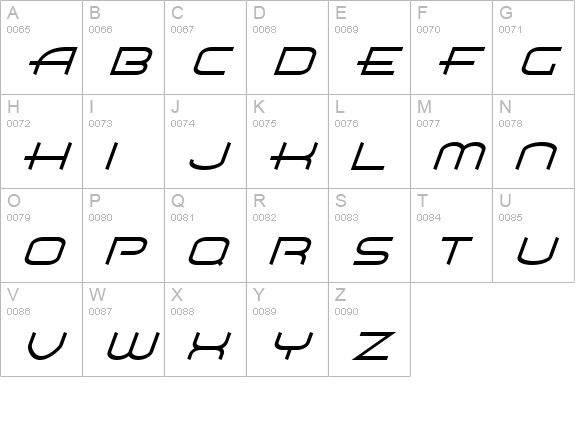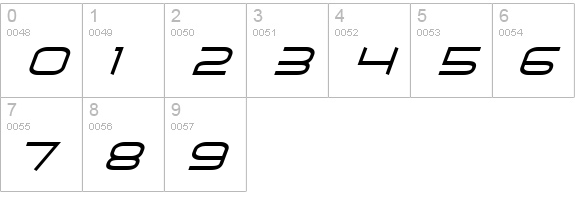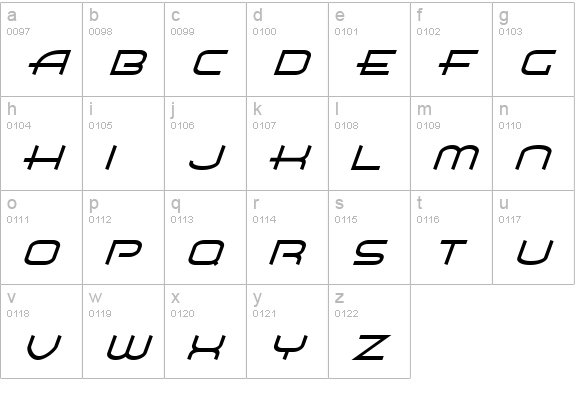
Air Flow BTN Lt Oblique Font Details
Air Flow BTN Lt Oblique is a distinctive, italic variant in the Air typeface family \xE2\x80\x94 well suited to design and typography projects.
Air Flow BTN Lt Oblique is a modern and stylish font that exudes elegance and sophistication. Its slanted design adds a touch of dynamism to any text, making it perfect for various design projects such as logos, posters, and branding materials. The sleek and clean lines of this font create a sense of professionalism and contemporary flair. What sets Air Flow BTN Lt Oblique apart is its versatility and adaptability to different design styles and purposes. Whether you're aiming for a minimalist look or a more elaborate design, this font will enhance your project with its unique aesthetic appeal. And the best part? Air Flow BTN Lt Oblique is completely free to download at FontsMarket.com. This means you can elevate your designs without breaking the bank. Don't miss out on this fantastic opportunity to enhance your creative projects with a high-quality font that is both stylish and accessible.